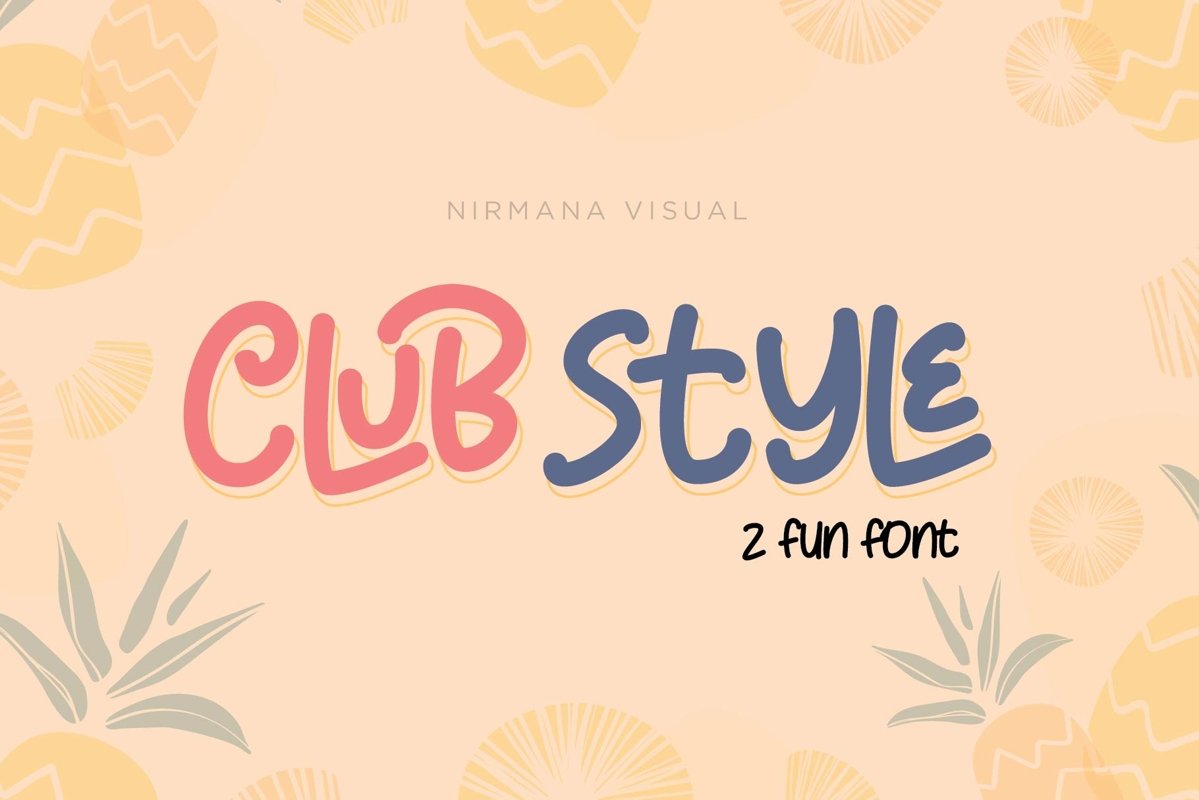
Club Style - 2 Cute Fun Font
Club Style - Cute Font
Club Style is a fun handwritten font!
This font is perfect for quotes, shirt designs, websites, branding, children's designs,  blogs, logos, invitations and more!
Club Style, features :
- Club Style Regular
- Club Style Outline
- Ligature
- Stylic Alternate
- Ampersand Alternate
- Multilingual support